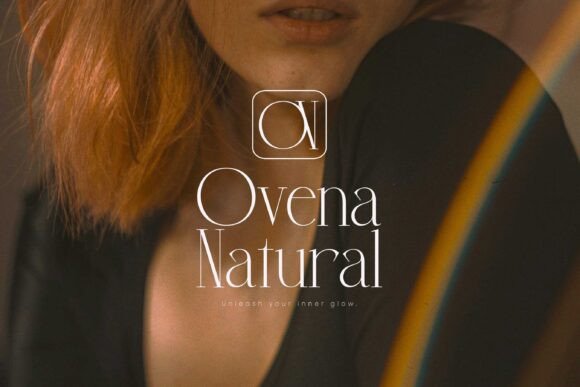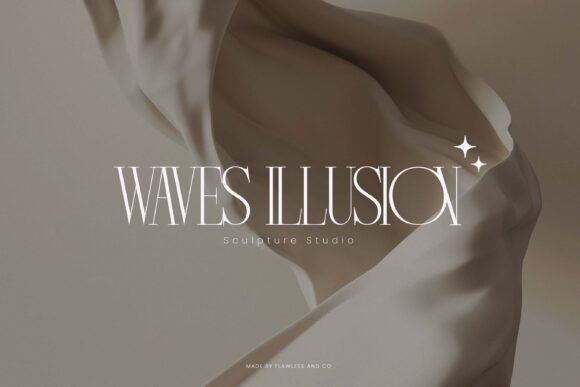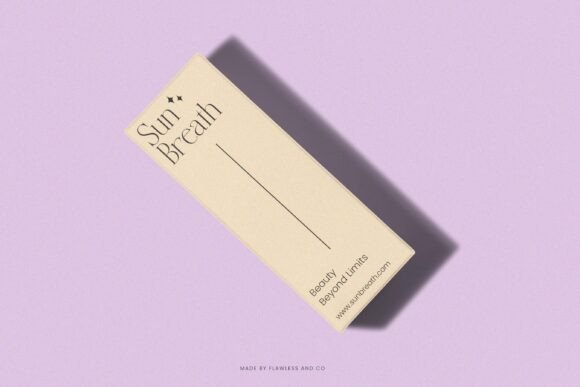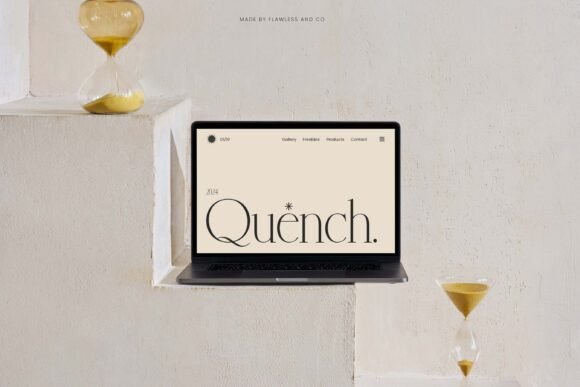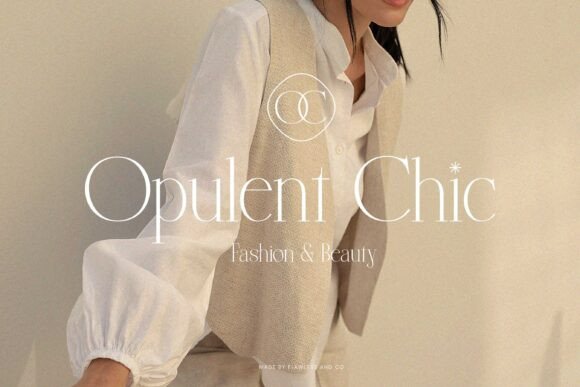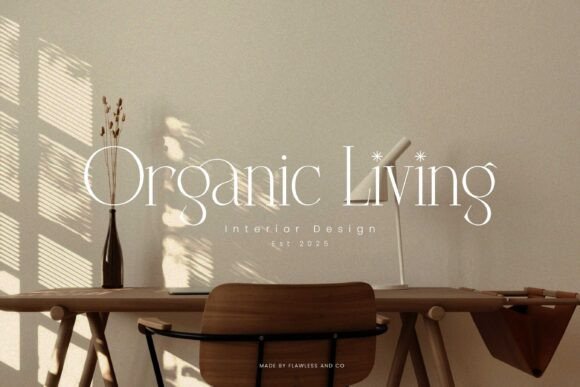
Introducing Black Frost Font: Elevate Your Designs with Timeless Elegance
In the world of typography, fonts play a crucial role in conveying the tone and personality of a brand or design. For those seeking a modern yet sophisticated look, the Black Frost font is an excellent choice. This elegant serif font seamlessly blends contemporary style with refined letterforms, making it perfect for luxury branding, high-end fashion, editorial designs, product packaging, wedding invitations, and stylish social media graphics.
The Essence of Black Frost Font
Black Frost is a modern elegant serif font that exudes sophistication and poise. Its sharp details and refined letterforms give it a distinctive look that is both classic and contemporary. The font’s design is characterized by clean lines, precise curves, and a sense of luxury that is hard to ignore. Whether you’re working on a high-end fashion brand, a luxury product, or an editorial project, Black Frost is sure to make a lasting impression.
Perfect for Luxury Branding
Luxury branding requires a font that conveys sophistication, elegance, and refinement. Black Frost font ticks all these boxes, making it an ideal choice for luxury brands looking to elevate their visual identity. The font’s modern yet classic look ensures that it will appeal to a wide range of audiences, from fashion enthusiasts to connoisseurs of fine art and design.
High-End Fashion and Editorial Designs
In the world of high-end fashion, typography plays a critical role in conveying style and sophistication. Black Frost font is perfect for fashion brands looking to create a lasting impression. Its elegant serif design and sharp details make it ideal for editorial designs, such as fashion magazines, lookbooks, and advertising campaigns. The font’s refined look also makes it suitable for product packaging, where it can help to create a luxurious unboxing experience.
Wedding Invitations and Social Media Graphics
Black Frost font is not just limited to luxury branding and high-end fashion. Its elegant design also makes it perfect for wedding invitations, where it can add a touch of sophistication and romance. Additionally, the font’s modern look ensures that it will work well in social media graphics, such as Instagram posts, Facebook headers, and Twitter graphics.
Key Features of Black Frost Font
- Modern Elegant Serif Font: Black Frost is a modern take on traditional serif fonts, with a unique blend of sophistication and contemporary style.
- Refined Letterforms: The font’s refined letterforms are designed to convey elegance and poise, making it perfect for luxury branding and high-end fashion.
- Sharp Details: The font’s sharp details add a touch of sophistication and refinement, making it ideal for editorial designs, product packaging, and wedding invitations.
- Timeless Beauty: Black Frost font has a timeless beauty that ensures it will remain relevant for years to come, making it a valuable addition to any designer’s font library.
In conclusion, Black Frost font is a versatile and elegant serif font that is perfect for designers and crafters looking to elevate their projects with a touch of sophistication and refinement. Its modern yet classic look makes it suitable for a wide range of applications, from luxury branding and high-end fashion to editorial designs, product packaging, wedding invitations, and social media graphics. With its refined letterforms, sharp details, and timeless beauty, Black Frost font is sure to become a staple in any designer’s font library.